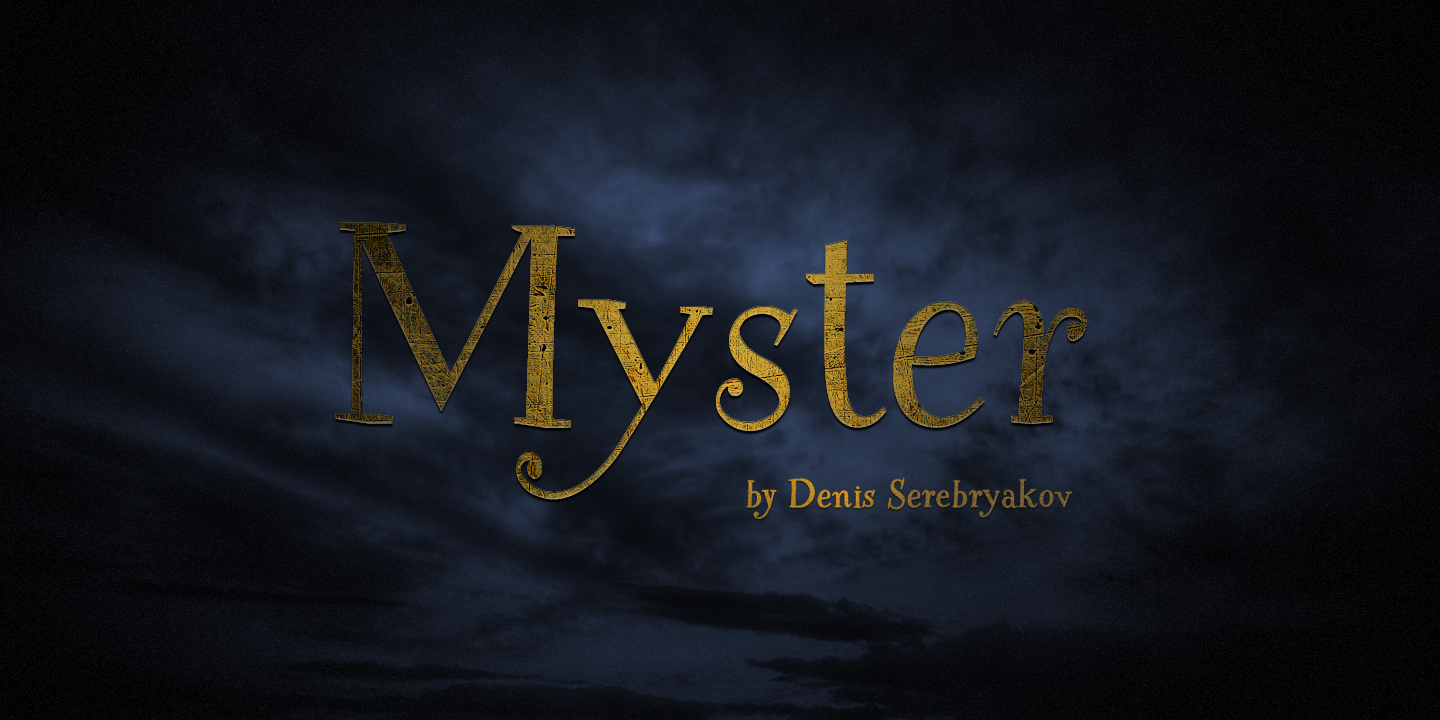
Perfect for mystery novel covers, detective agency branding, escape room marketing, thriller movie titles, suspense entertainment promotions, noir-themed restaurants, investigative journalism materials, and enigmatic storytelling projects.
This font is exciting because it captures the intriguing allure and shadowy sophistication of mystery with enigmatic letterforms that embody the psychological tension and captivating suspense found in detective stories and mysterious entertainment experiences.
Unravel the secrets of compelling design with Myster Font Free Download, an enigmatically sophisticated typeface that embodies the intriguing allure and psychological tension of classic mystery storytelling. This exceptional font brings the shadowy elegance and suspenseful atmosphere of detective fiction to contemporary design projects, making it perfect for mystery publishers, entertainment venues, and investigative organizations seeking to convey the captivating intrigue and sophisticated suspense of authentic mystery experiences and detective storytelling traditions.
Myster Font features mysteriously crafted letterforms with enigmatic characteristics and suspenseful proportions that immediately evoke the psychological intrigue and shadowy sophistication of classic detective fiction. The intriguingly designed characters combine mystery aesthetics with excellent readability, creating immediate associations with investigative excellence, psychological suspense, and the captivating atmosphere that defines authentic mystery storytelling and detective entertainment throughout crime fiction and suspense entertainment communities worldwide.
The font's remarkable mysterious character makes it invaluable for mystery publishers, entertainment production companies, and investigative organizations where conveying psychological intrigue and suspenseful authenticity is essential for building audience engagement and establishing mystery genre credibility. Whether you're designing materials for detective fiction publishers celebrating classic mystery traditions, creating promotional content for escape room venues offering immersive mystery experiences, or developing brand identities for investigative services, Myster Font delivers the authentic mystery aesthetic that resonates with audiences seeking genuine suspense experiences and psychological intrigue entertainment.
Mystery entertainment professionals and detective fiction specialists worldwide choose the Myster Font Free Download for projects requiring suspenseful authenticity and psychological mystery appeal. The font works brilliantly for private investigation agencies emphasizing professional discretion, mystery theater companies producing classic detective dramas, crime documentary productions showcasing investigative excellence, and any organization seeking to establish connections with audiences who appreciate psychological suspense and the sophisticated intrigue of classic mystery storytelling and detective entertainment.
The comprehensive Myster Font family includes variations that maintain the signature mysterious character while providing design flexibility for diverse mystery and suspense applications. Each character demonstrates exceptional attention to enigmatic design principles, ensuring the intriguing character remains authentic and visually compelling across all sizes, from detailed mystery novel typography to large-scale entertainment venue signage and suspense event materials.
This typeface excels in applications where creating atmosphere of psychological intrigue and mysterious sophistication is crucial for establishing mystery genre credibility and suspenseful connection. The enigmatic letterforms create immediate associations with detective excellence that eliminates the need for additional mystery symbols, allowing the typography itself to communicate psychological tension, investigative sophistication, and the captivating allure that mystery represents in entertainment and storytelling.
Myster Font's technical excellence ensures optimal performance across both traditional mystery publishing materials and modern digital platforms used for suspense entertainment promotion and mystery genre communications. The distinctive letterforms maintain their mysterious appeal when reproduced on various materials, from book covers to digital displays that must capture the shadowy essence of psychological intrigue.